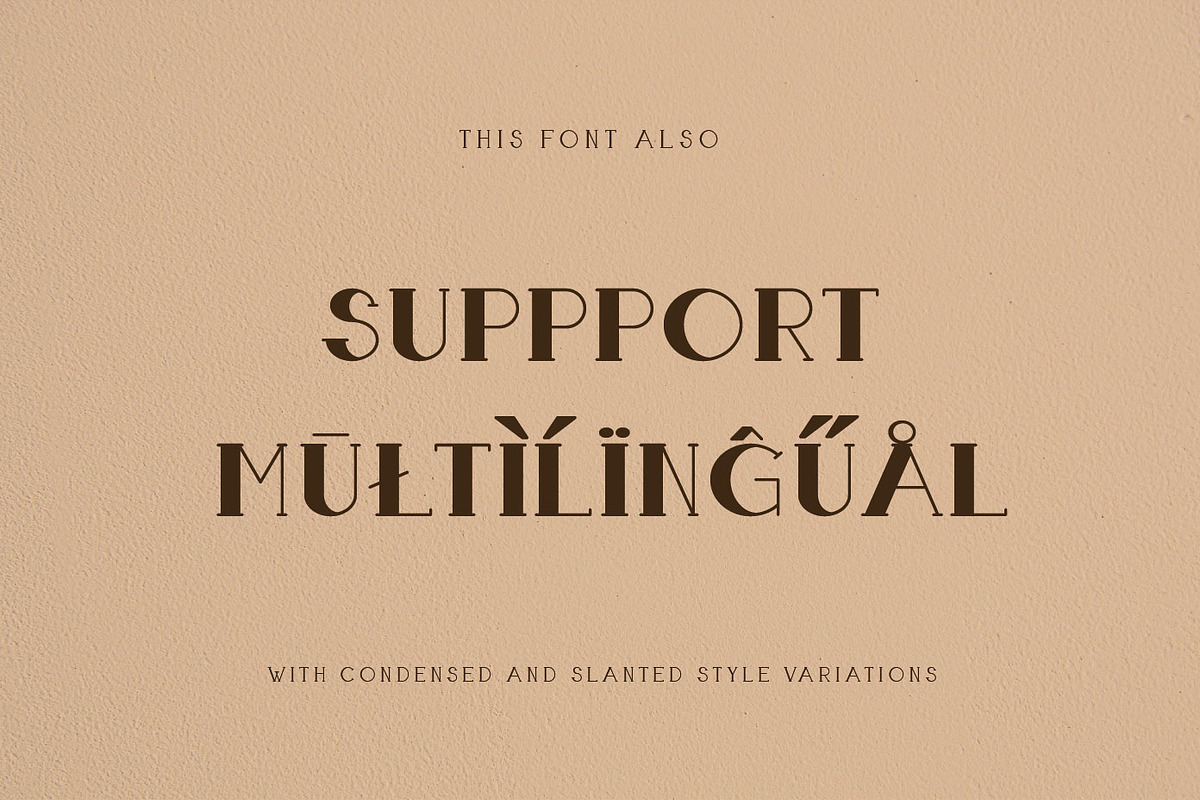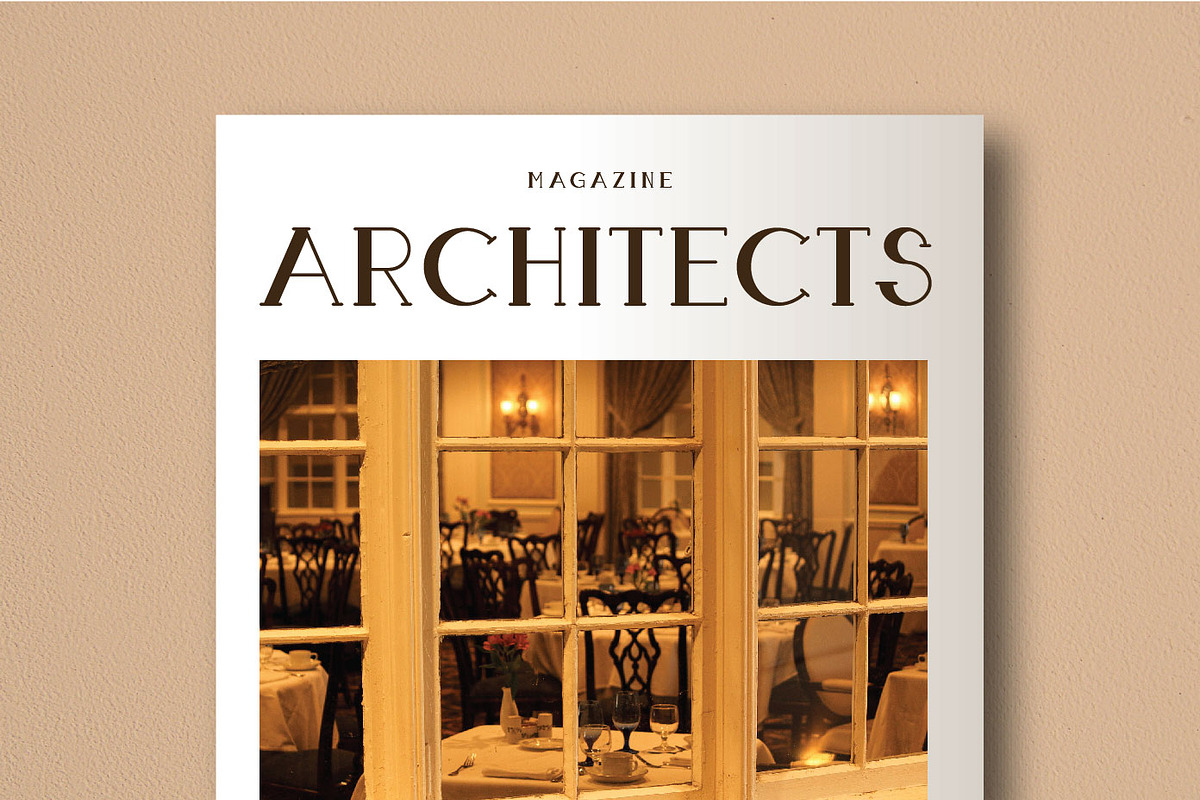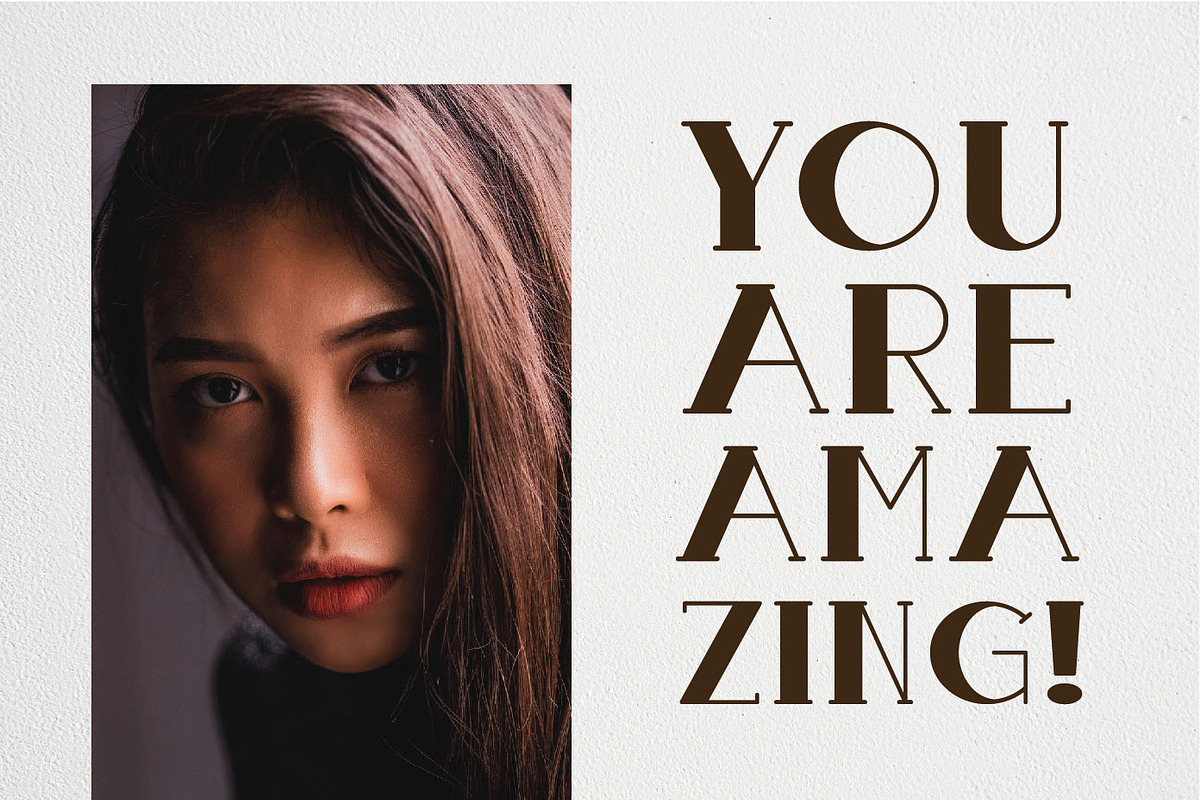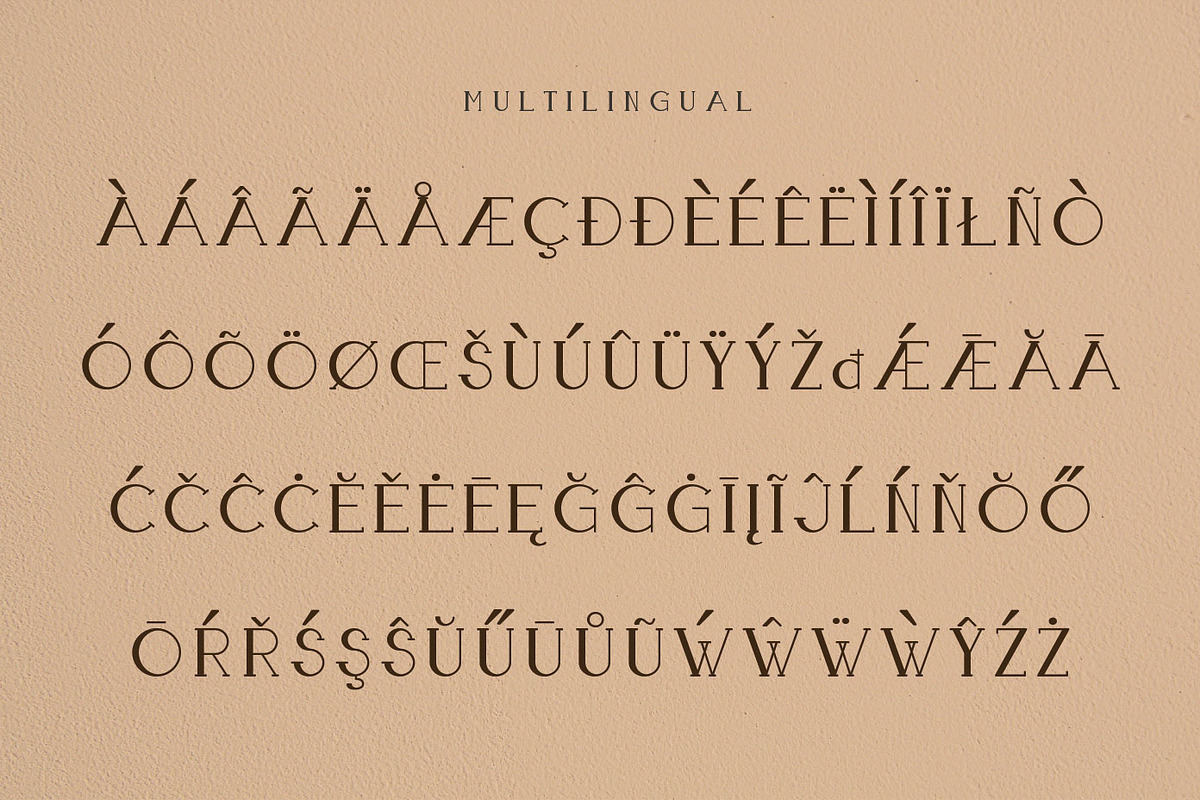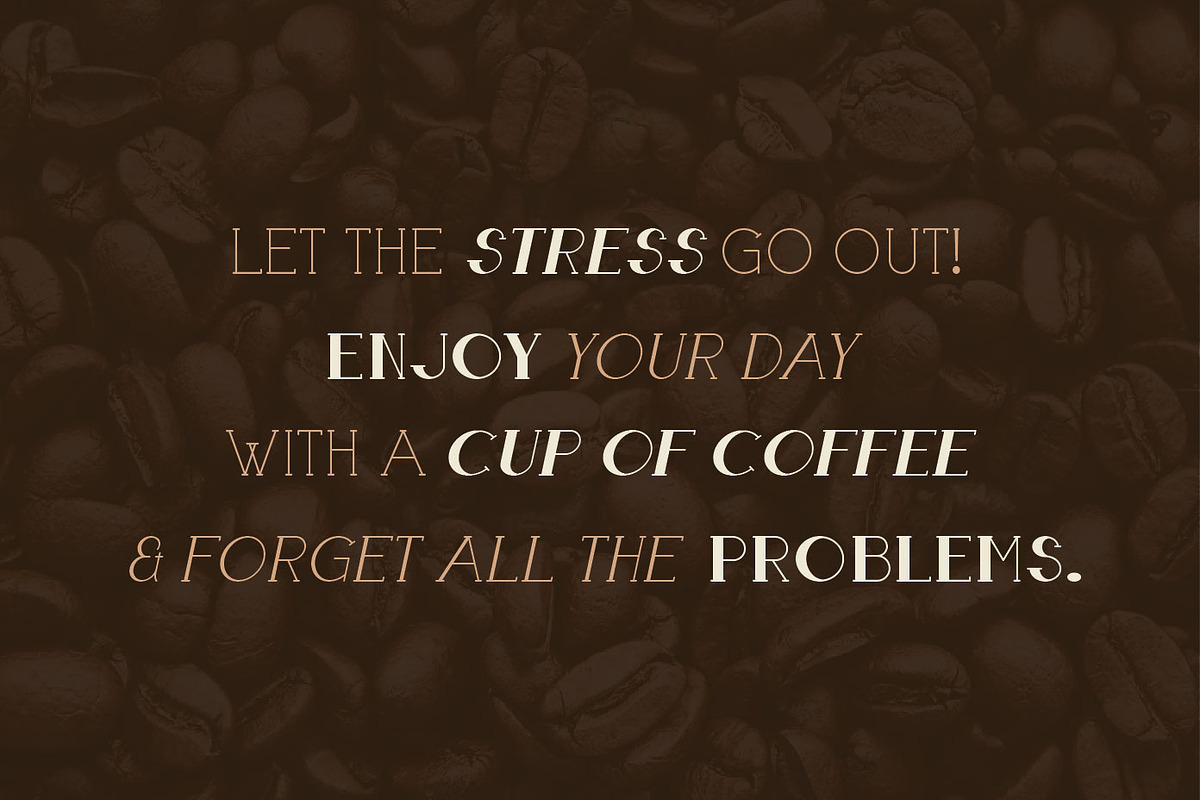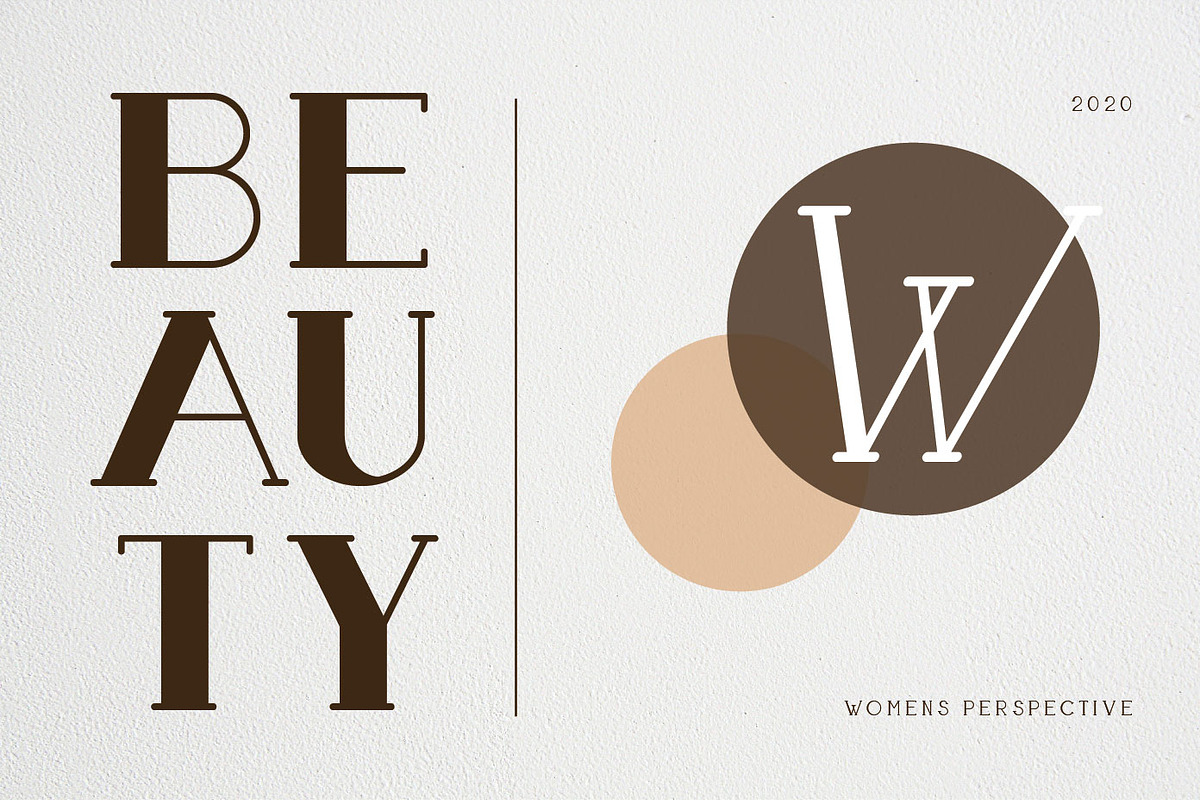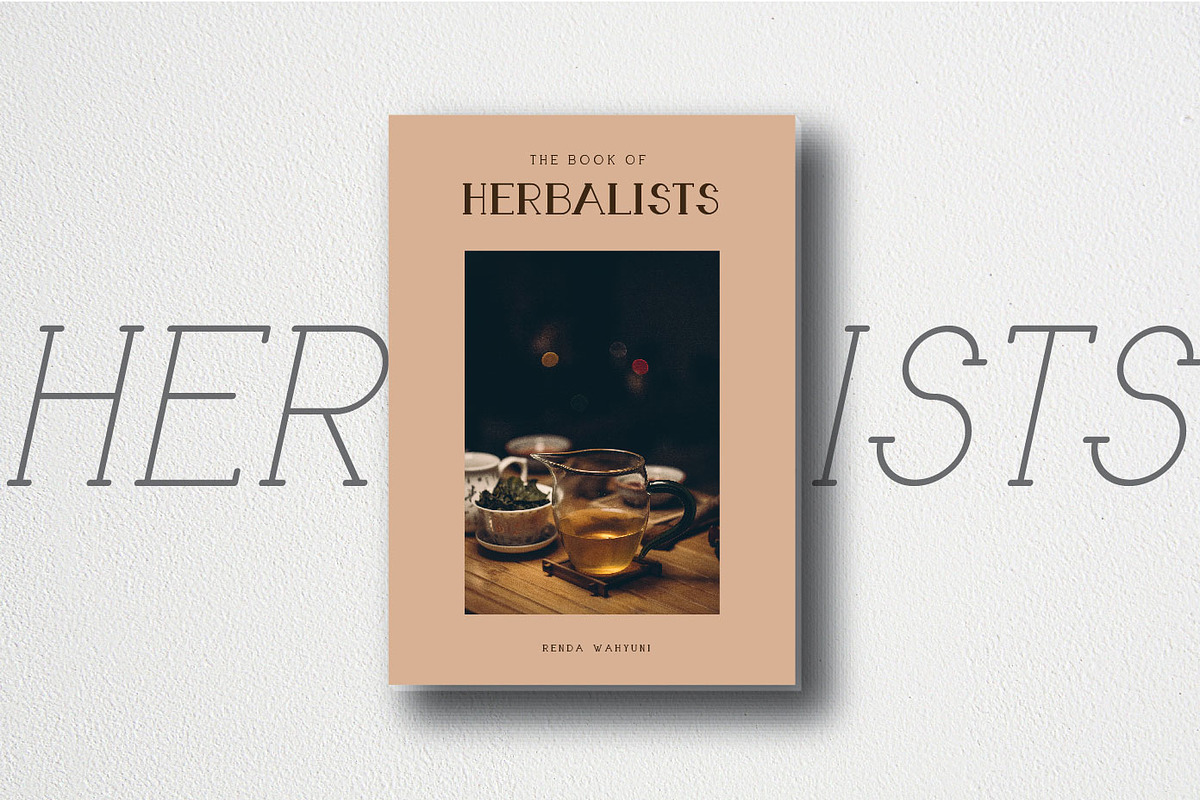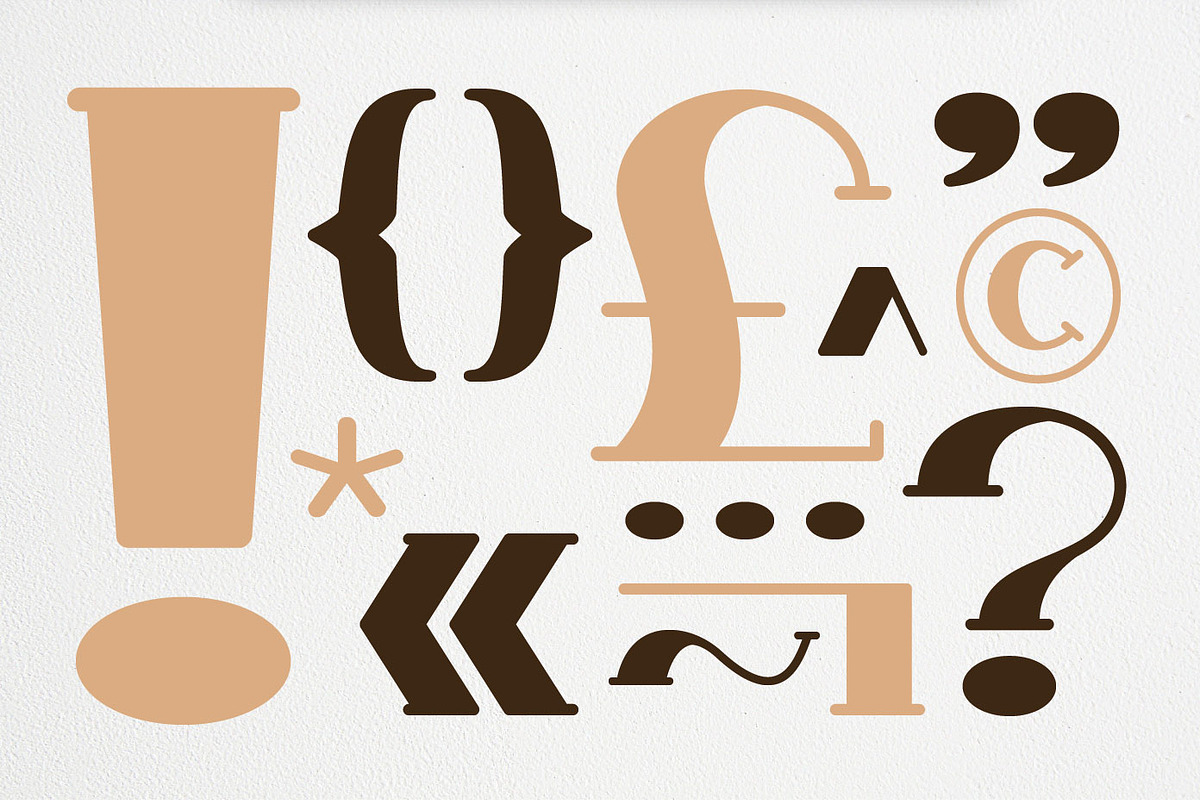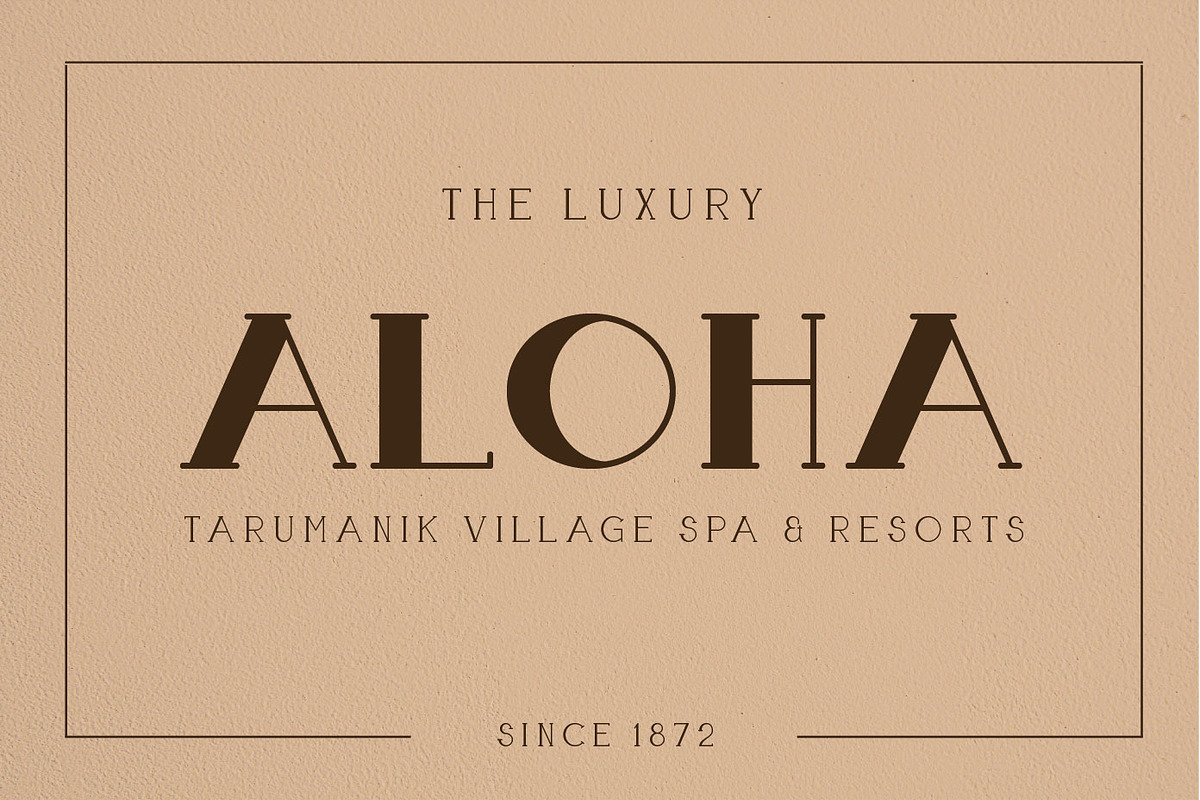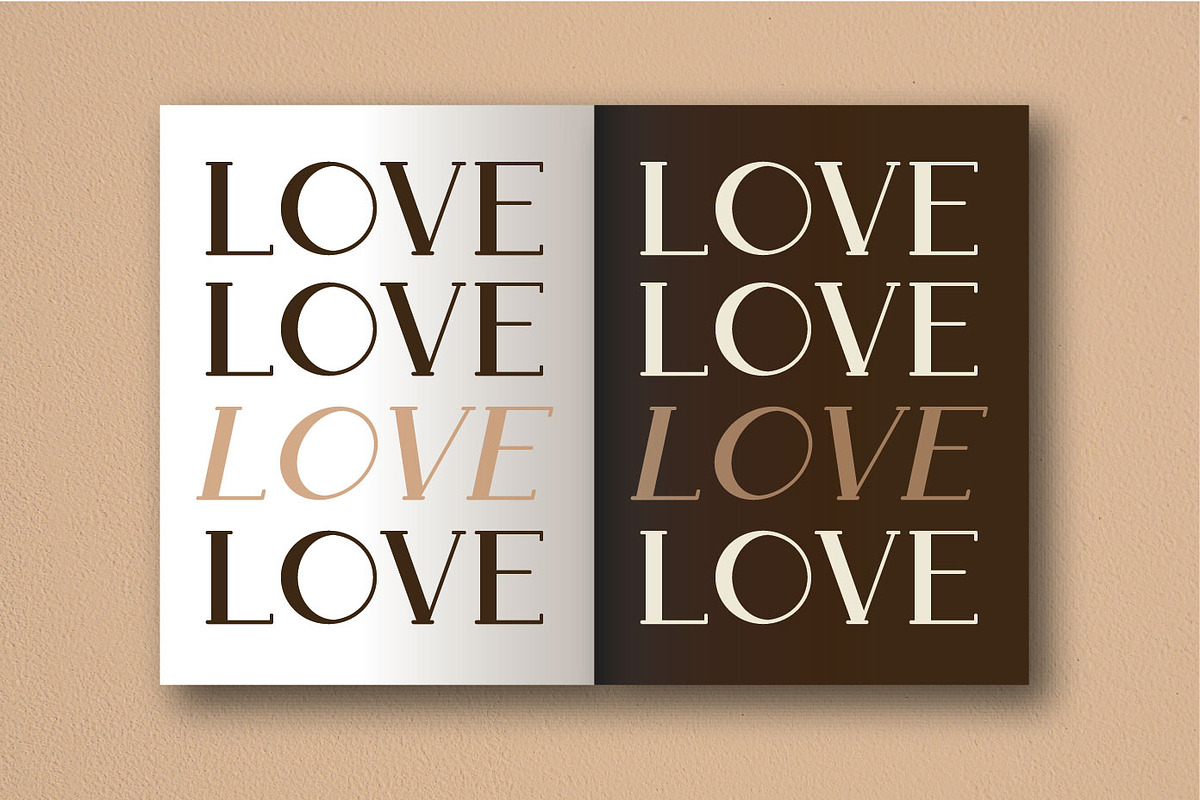
Boldatin font family, a slab display typeface with different styles (regular, slanted, condensed slanted) with total of 24 fonts and 6 weight that suit for your project like signage, poster, banner, flyer, etc.